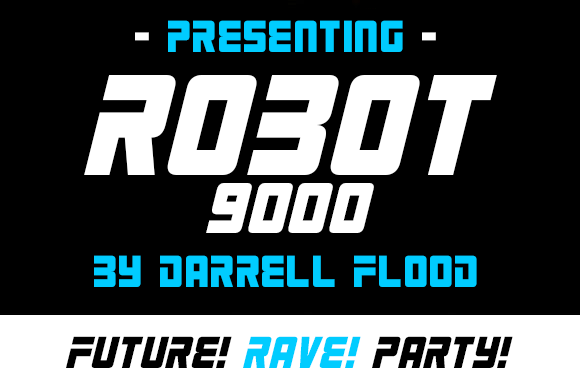
Introduction to Robot 9000 Font
Robot 9000 is a futuristic font in a slick, smooth style.
Perfect for alien encounters, tech presentations, and general sci-fi use .
Key Features of Robot 9000 Font
Why Choose Robot 9000 Font?